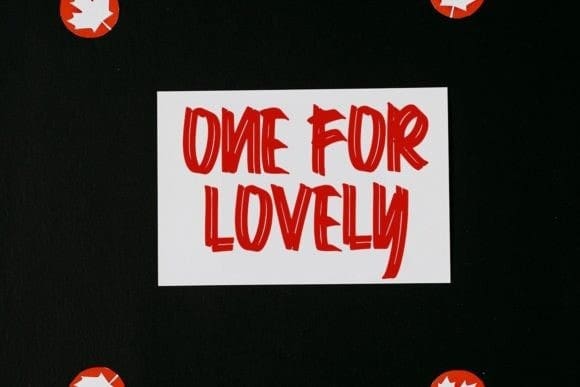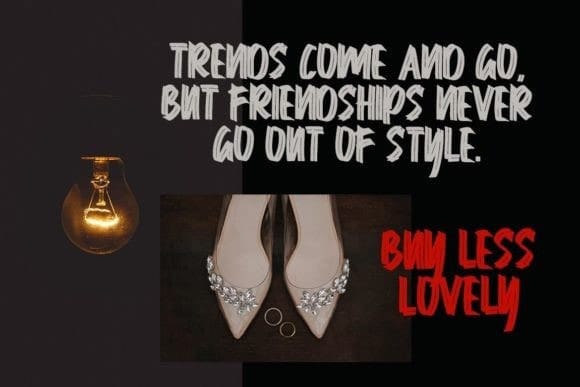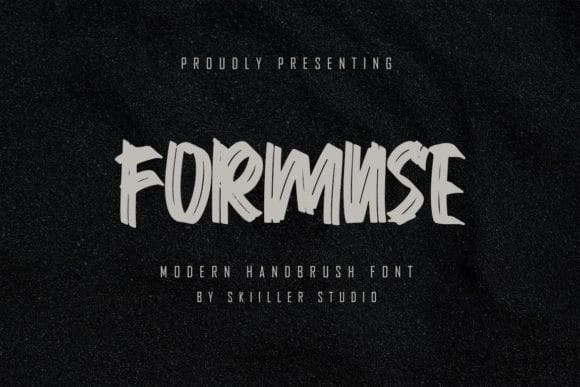
Formuse Brush Font
Formuse Brush Font is a dry hand brushed display font that allows you to create stunning handwriting quickly and easily. Ideal for logos, handwritten quotes, product packaging, headers, posters, merchandise, social media & greeting cards.